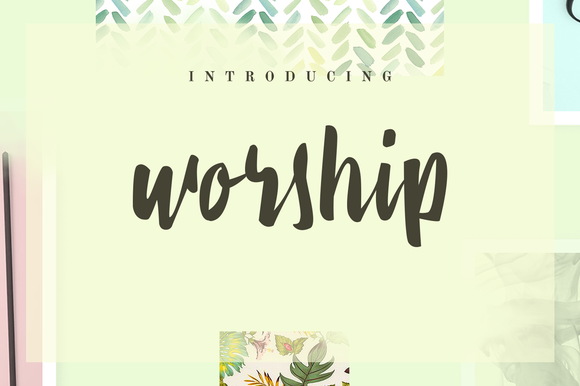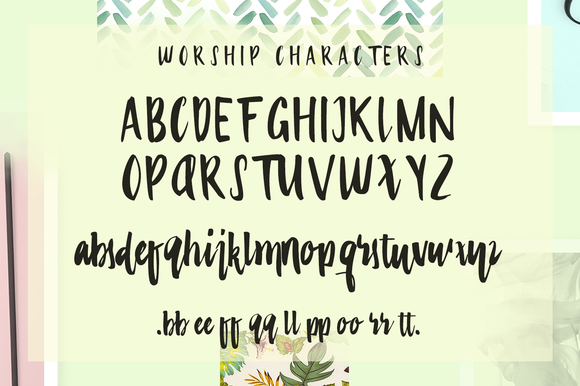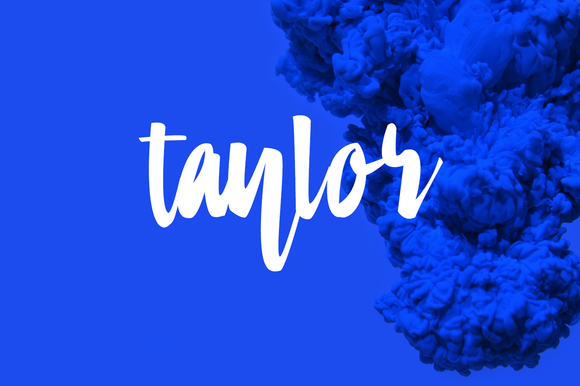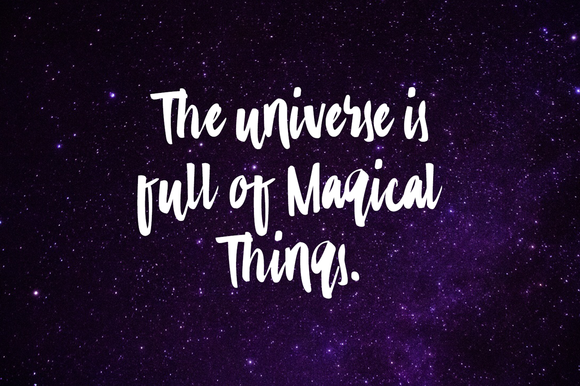
HomeScript FontsWorship Font Script Fonts Worship Font FacebookXPinterestWhatsApp Worship Font Poster 2 Worship Font Poster 3 Worship Font Poster 4 About Worship Font Worship is a playful, fresh & modern brush font. DOWNLOAD ON CREATIVE FABRICAThis font is sold and delivered by Creative Fabrica. Font Canyon may earn a commission if you buy through this link. People also explored Realistic Mock-ups on Vintage Background Yan 333 Encrypt Font Flamante SemiSlab Light & Bold Font Mushroom Font Mckenzie Font Hello Wild Font Respectful Font Kastralis Font 342 0 TagsWorship Font Previous articleAmerizana FontNext articleVictoria Font LEAVE A REPLY Cancel reply Comment: Please enter your comment! Name:* Please enter your name here Email:* You have entered an incorrect email address! Please enter your email address here Website: Save my name, email, and website in this browser for the next time I comment. Personal Use Free Adelfa Personal Use Free Read more about this font Beattingvile Personal Use Free Read more about this font Klotee Personal Use Free Read more about this font Mustica Personal Use Free Read more about this font BLOG Transform Your Website: Elevate Your Typography with 7 Best Web Font Generators Are you ready to transform your website's typography from ordinary to extraordinary? Great! Today, we're diving into the world of web font generators, which... The 10 Best Handwriting Fonts to Add Personality to Your Designs Best Fonts for T-Shirt Design – Top 2025 Picks How to Install and Use Fonts on Windows, macOS, and Web Projects